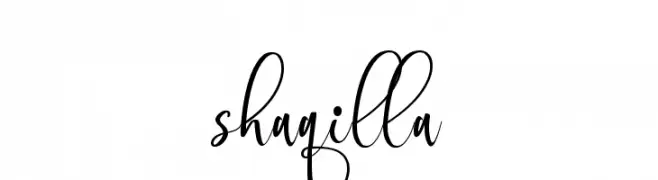
A flowing, cursive script font with elegant, connected strokes.
An elegant script font with intricate swirls and decorative flourishes.
A bold, hand-drawn font with an expressive and dynamic style.
An elegant, flowing script font with a handwritten appearance.
A bold, flowing script font with elegant, connected letterforms.
A playful, handwritten font with tall, narrow letters and consistent stroke width.
An elegant, flowing script font with decorative swirls and playful numerals.
A dynamic, cursive font with bold, sweeping strokes and elegant loops.
A bold, playful font with dynamic shapes and a hand-drawn feel.